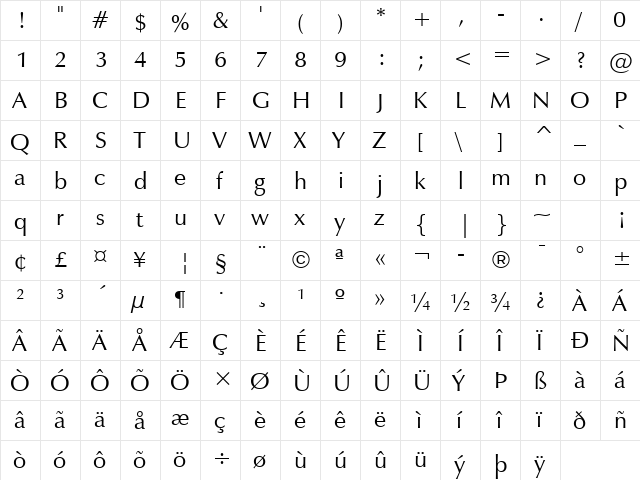
ZapfHumnst BT Roman
Design Context for ZapfHumnst BT Typeface
ZapfHumnst BT is a composed and adaptable typeface that performs quietly and consistently across a wide range of design contexts.